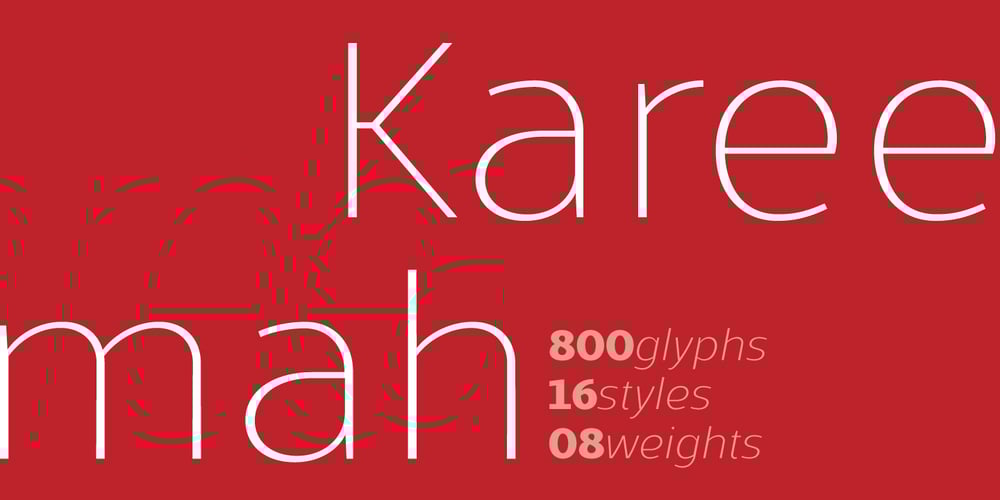
Kareemah Font Family was designed by Jefferson Cortinove and published by Sea Types. Kareemah contains 16 styles and family package options. Kareemah is humanist typography, composed of roman and italics with 16 styles and 8 weights (800 glyphs) including ligatures, alternates, small caps,old style figures, fractions, superiors, inferiors and more. Perfectly legible and clean for long, simple texts in headlines. “Specimen Kareemah PDF”